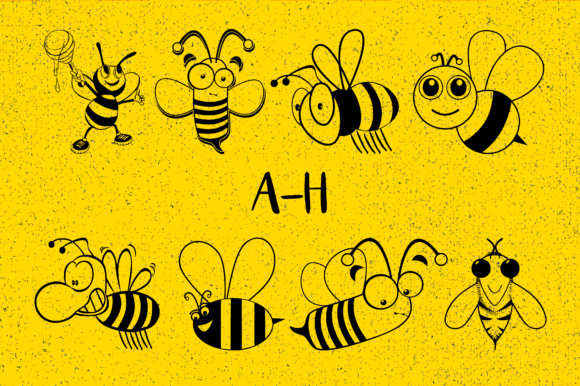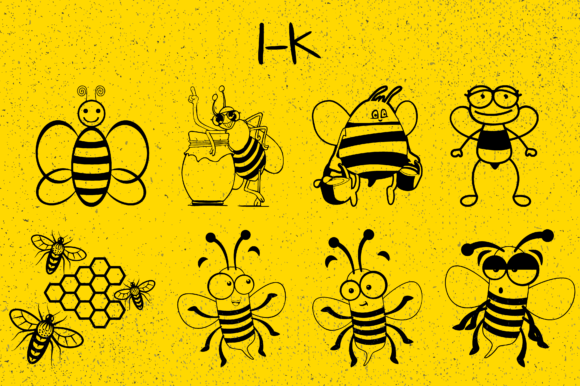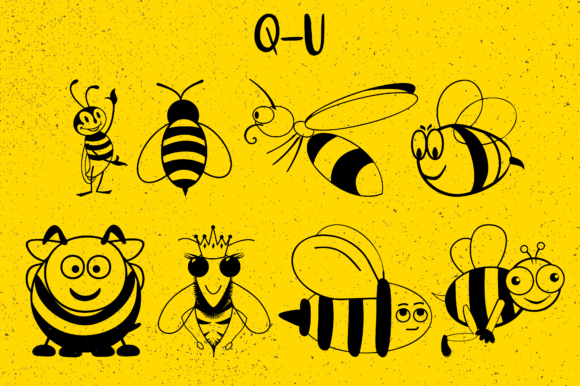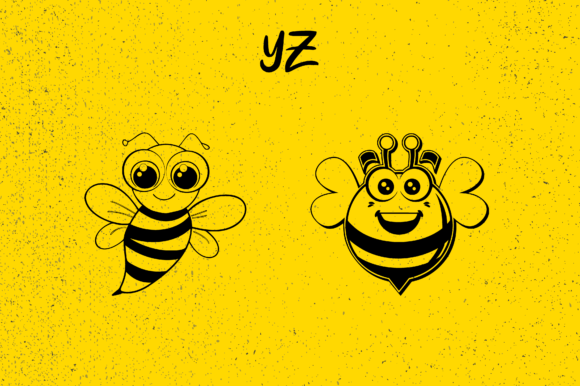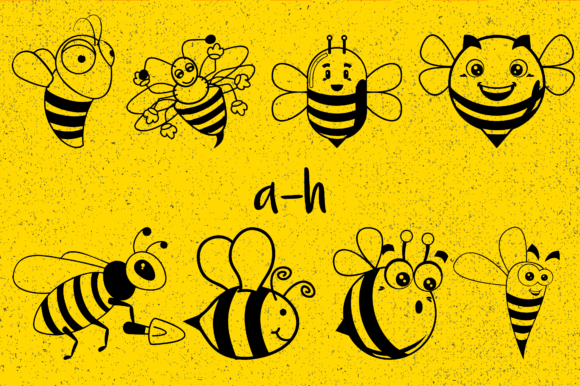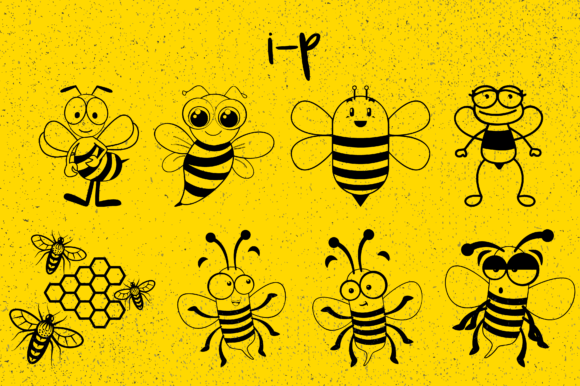
Bee Cute Font: Create Adorable Bee Designs with Ease
Are you a designer, crafter, or DIY enthusiast looking for a unique and playful way to add bee designs to your projects? Look no further than the Bee Cute Font, a dingbats typeface that allows you to generate up to 47 unique bee designs by simply typing uppercase and small case letters.
What is Bee Cute Font?
Bee Cute Font is a specially designed dingbats typeface that features a variety of bee designs, from cute and simple to more intricate and detailed. With this font, you can create a range of bee designs, from single bees to bee clusters, and even bees with flowers or honeycombs.
How Does it Work?
Using Bee Cute Font is incredibly easy. Simply type uppercase and small case letters to generate up to 47 unique bee designs. The font is designed to work seamlessly with your computer’s keyboard, allowing you to create bee designs with ease. Whether you’re working on a digital project or a craft project, such as scrapbooking or card making, Bee Cute Font is the perfect tool.
- Easy to use: Simply type uppercase and small case letters to generate unique bee designs.
- Versatile: Use Bee Cute Font in a variety of projects, from digital designs to craft projects.
- Unique designs: Generate up to 47 unique bee designs with this font.
- Cute and playful: Bee Cute Font features adorable bee designs that are perfect for a range of projects.
Bee Cute Font is the perfect tool for designers and crafters who want to add a touch of whimsy and fun to their projects. Whether you’re creating digital designs, such as social media graphics or blog posts, or working on craft projects, such as scrapbooking or card making, Bee Cute Font is sure to inspire your creativity.
Ideas for Using Bee Cute Font
- Scrapbooking: Use Bee Cute Font to add cute bee designs to your scrapbook pages.
- Card making: Create adorable bee-themed cards for birthdays, weddings, and other special occasions.
- Digital designs: Use Bee Cute Font to create bee-themed social media graphics, blog posts, and other digital designs.
- Stationery: Add bee designs to your stationery, such as notebooks, journals, and stickers.
- Crafting: Use Bee Cute Font to create bee-themed decorations, such as garlands, banners, and signs.
Bee Cute Font is a fun and versatile dingbats typeface that is perfect for designers, crafters, and DIY enthusiasts. With its ease of use, unique designs, and compatibility with most software, Bee Cute Font is sure to inspire your creativity and add a touch of whimsy to your projects. So why not give it a try and see what amazing bee designs you can create?